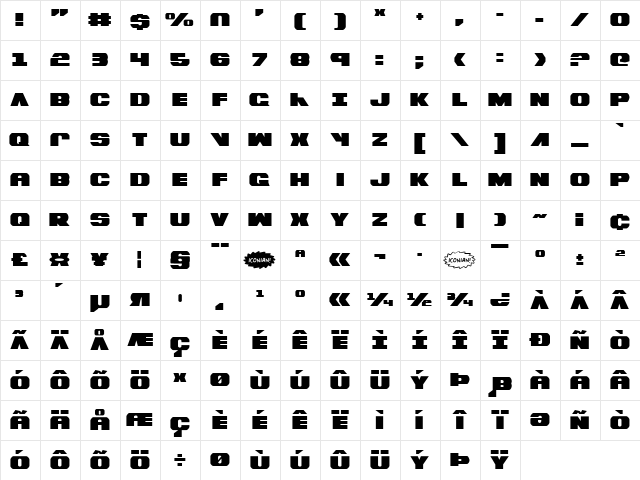
Bummer Regular
| Designer | Dan Zadorozny |
Design Context for Bummer Typeface
Bummer is a composed and adaptable typeface that performs quietly and consistently across a wide range of design contexts.